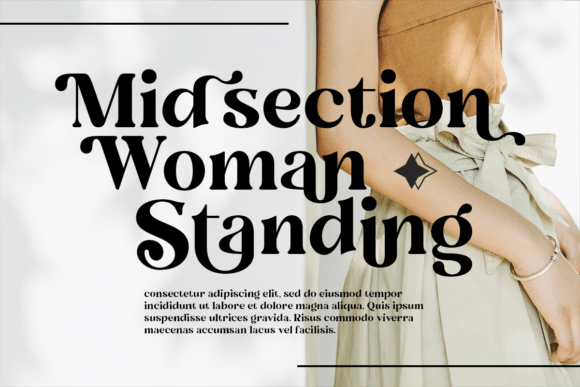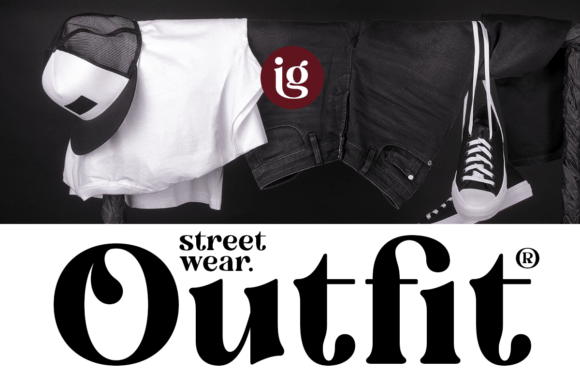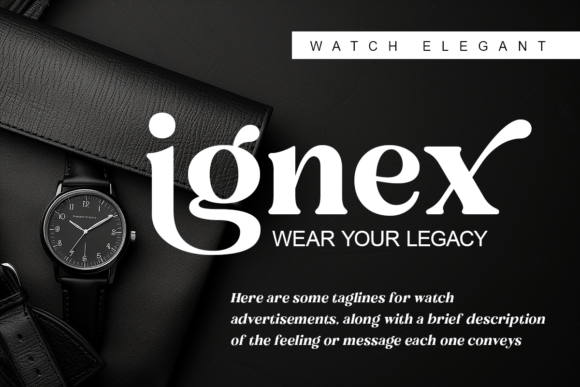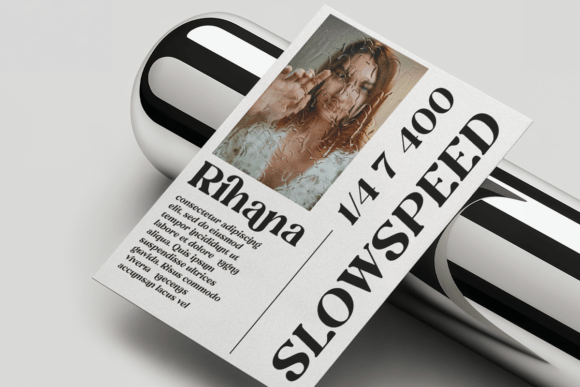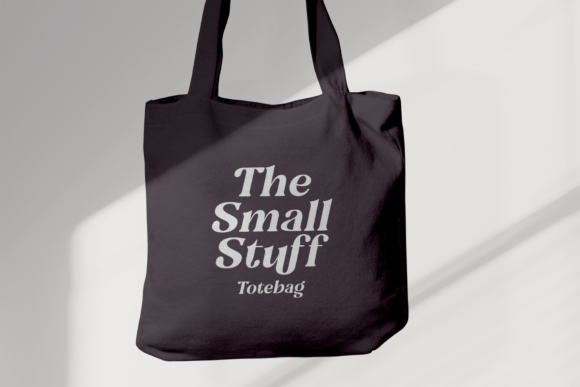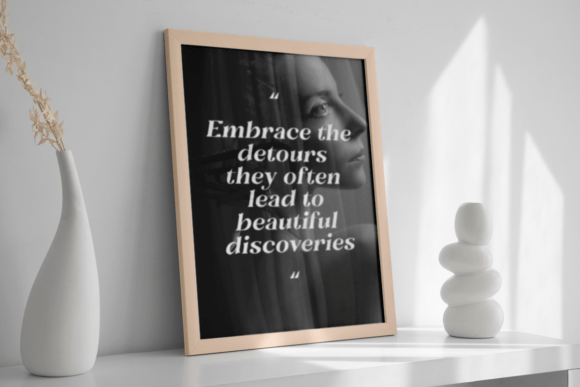
Introduction to Seravim Regular Font
Seravim is a modern, bold serif font that evokes the nostalgic charm of vintage advertisements and retro computer aesthetics.
With its strong presence and refined details, Seravim is your go-to typeface for capturing that authentic retro look while preserving a polished, contemporary edge Whether youโre crafting bold typographic compositions or building standout digital content, this font brings timeless character and clarity to your creative work.